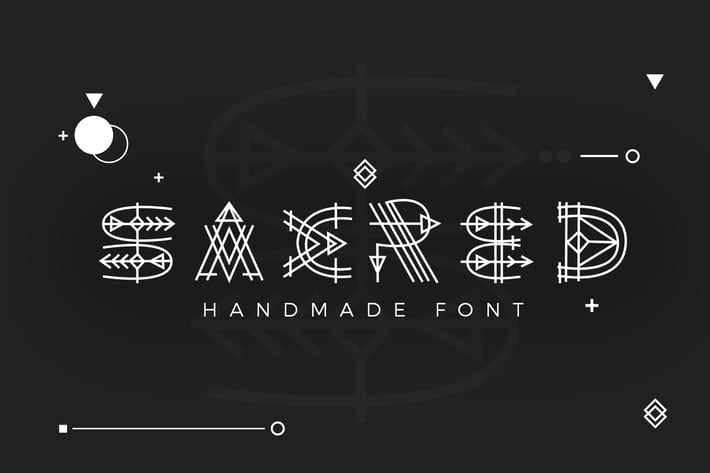
Paraoh - Sacred Font
micromove
We Provide You one of the best Stylish Hand Written Script.
Best match for logos, header, Titles, Prints & other Creative process possibilities.
Create a Extraordinary Typography / lettering results by using Paraoh - Ancient Font Script
- Clean Results